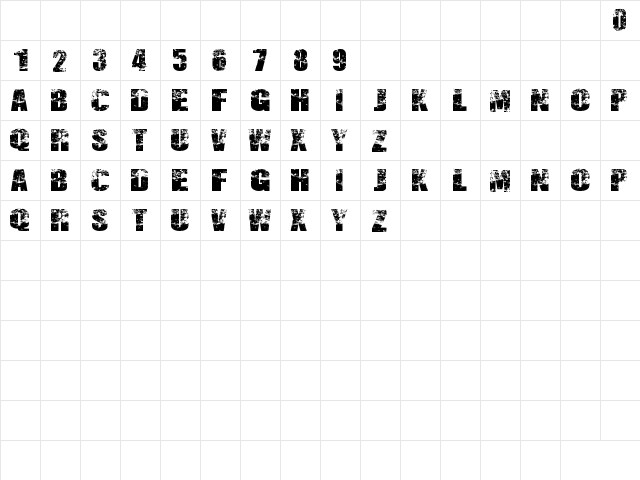
DESTRUCCION Regular
Design Context for DESTRUCCION Typeface
DESTRUCCION is a composed and adaptable typeface that performs quietly and consistently across a wide range of design contexts.